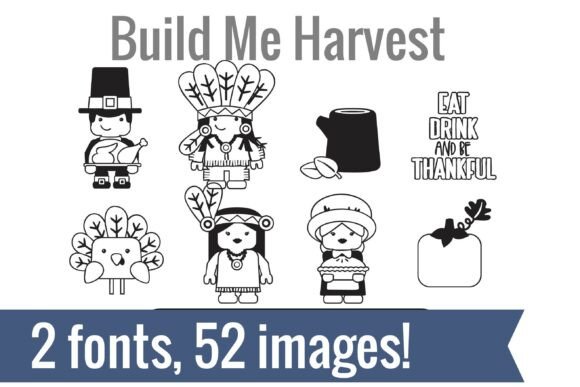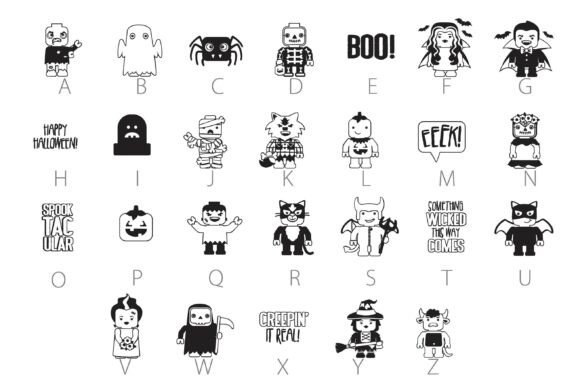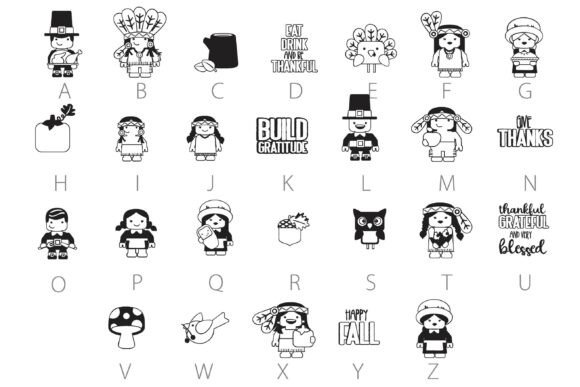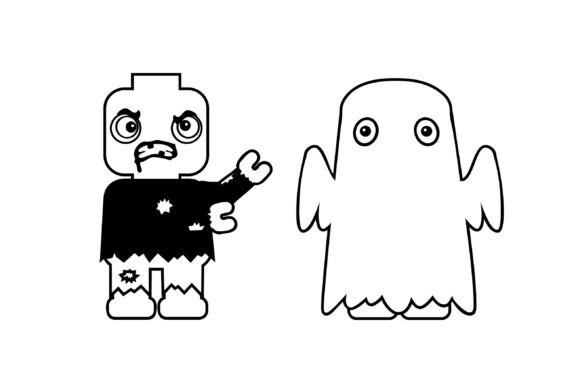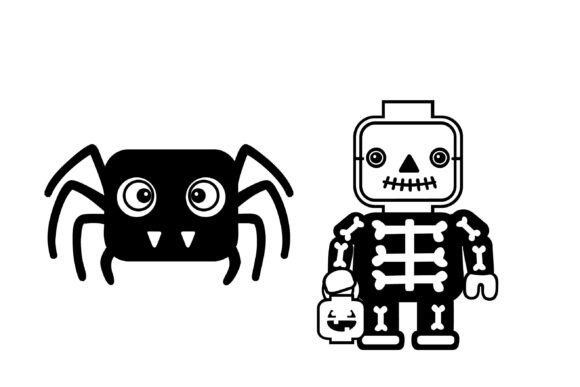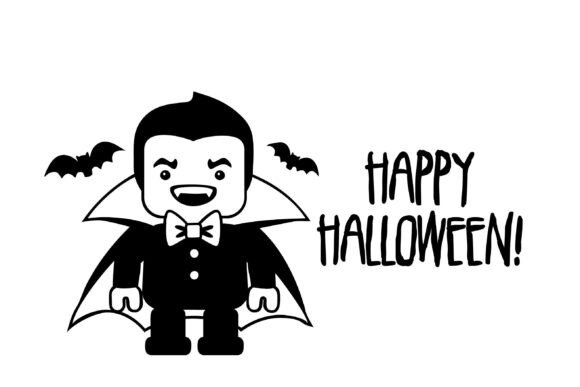
Unlock Endless Creativity with Build Me Halloween Font
As a designer, I’ve had my fair share of frustrating moments while working on a project. I recall one particular instance where I was tasked with creating a Halloween-themed invitation for a client’s party. I had a clear vision of what I wanted to achieve, but I was struggling to find the perfect font that would bring my design to life. That’s when I stumbled upon the Build Me Halloween Font, and it changed the game for me!
The Problem with Finding the Perfect Icons and Graphics
We’ve all been there – spending hours scouring the internet for the perfect icons and graphics to complement our designs. It’s time-consuming, and often, we end up with a mishmash of different styles that don’t quite work together. But what if I told you there’s a better way? The Build Me Halloween Font is a game-changer, offering two perfectly coordinated dingbat fonts that will take your designs to the next level.
What Makes Build Me Halloween Font So Special?
This fantastic font bundle includes two dingbat fonts, each featuring little construction toys dressed for the Halloween and Thanksgiving holidays. With dozens of cohesive, scalable designs at your fingertips, you can create stunning designs for vinyl cutting, paper crafts, planners, and more. The best part? You don’t need to be a design expert to use it. Simply install the font and type a letter to produce a pre-made image.
- ✨ Endless creative possibilities: With two perfectly coordinated fonts, you can create a wide range of designs, from charming seasonal icons to intricate frames.
- ✅ Easy to use: The font is incredibly user-friendly, making it perfect for designers of all levels.
- 🎃 Seasonal designs: The Halloween and Thanksgiving themes are perfect for creating holiday cards, invitations, and more.
- 🤔 Learning curve for OpenType features: While the font is easy to use, some users may need to familiarize themselves with OpenType features and glyphs.
- ⚠️ Limited character set: As a dingbat font, the character set may be limited compared to traditional fonts.
The Designer Inspiration Behind Build Me Halloween Font
The Build Me Halloween Font was created with the designer in mind. The creator, a passionate designer and crafty person, wanted to develop a font that would make it easy for others to create stunning designs without spending hours searching for the perfect icons and graphics. With a background in graphic design and a love for crafting, the creator poured their heart and soul into creating a font that would bring joy and creativity to designers and crafty hobbyists alike.